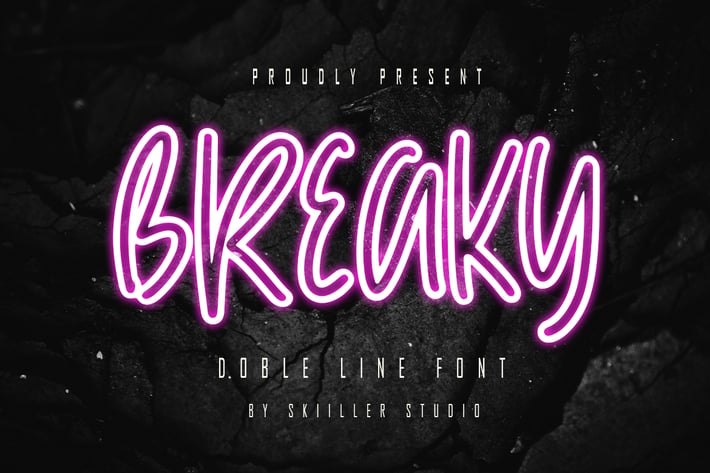
Breaky - Double Line Font
Breaky - Double Line Font type with a rapi so it looks elegant, suitable to support a variety of designs and your business
+ Basic Latin Language Support (AÀÁÂÃÄÅCÇDÐEÈÉÊËIÌÍÎÏÑOØÒÓÔÕÖUÙÜÚÛWYÝŸÆß )